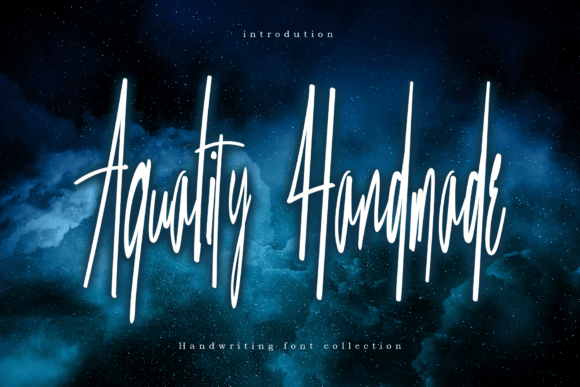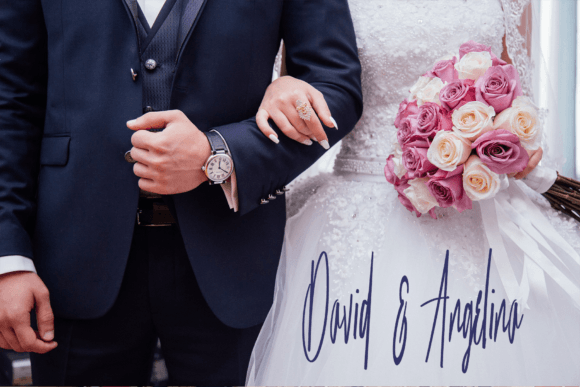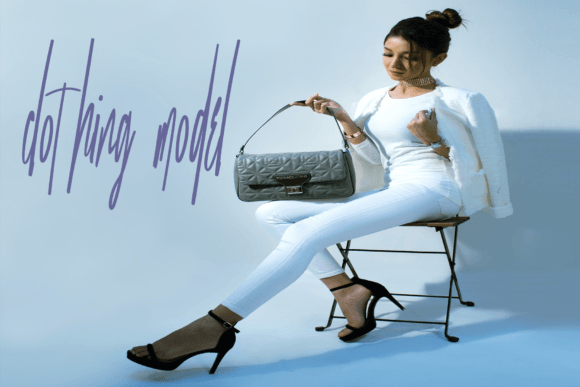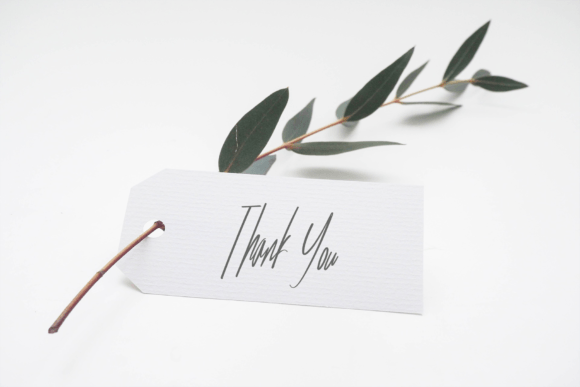
Aquality Handmade Font
About Aquality Handmade Font
“Aquality Handmade is a cool, simple, and playful handwritten font that adds a touch of versatility and charm to your designs. This font effortlessly adapts to a wide pool of creative concepts, lifting them to the highest levels of visual appeal. Integrate Aquality Handmade into your favorite creative ideas and witness how it breathes life into them with its playful and cool vibe!
The appeal of Aquality Handmade lies in its simplicity and cool design. Each letter exudes a laid-back and playful vibe, making it a perfect fit for various design applications. The font’s versatility allows it to seamlessly integrate into different contexts, adding a dash of personality to your creative projects.
Whether you’re working on branding, social media graphics, or any other design venture, Aquality Handmade stands out as a font that enhances the overall aesthetic. Its cool and simple style ensures that your designs remain contemporary and engaging.
Visualize Aquality Handmade infusing life into your favorite creative ideas, imparting a playful and laid-back touch. Its versatility becomes evident as it effortlessly complements different design elements, making your creations visually appealing and dynamic.
As you explore the nuances of Aquality Handmade, you’ll discover its potential to elevate ordinary projects into visual delights. Let it be the font that adds a touch of playfulness to your creative arsenal, making your designs stand out with a cool and simple handwritten aesthetic. With Aquality Handmade, every stroke becomes a brushstroke of creativity, making it a valuable asset for designers seeking versatility and a playful vibe in their typography.”